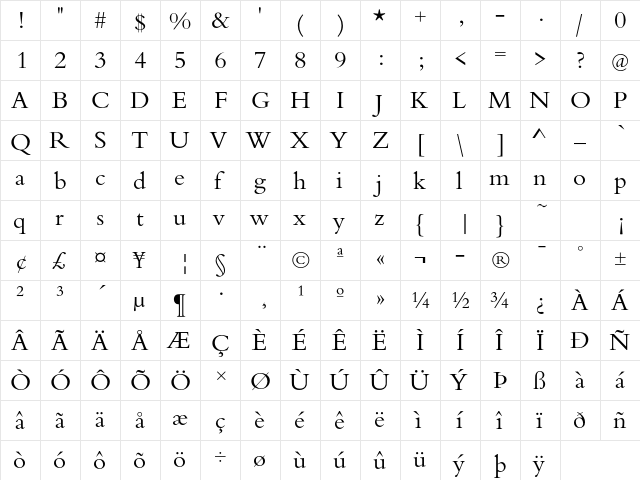
Bergamo Std Regular
Design Context for Bergamo Std Typeface
Bergamo Std is a composed and adaptable typeface that performs quietly and consistently across a wide range of design contexts.
Pro Tip: Pair Bergamo Std with a font of contrasting weight or personality to build a more expressive typographic hierarchy.